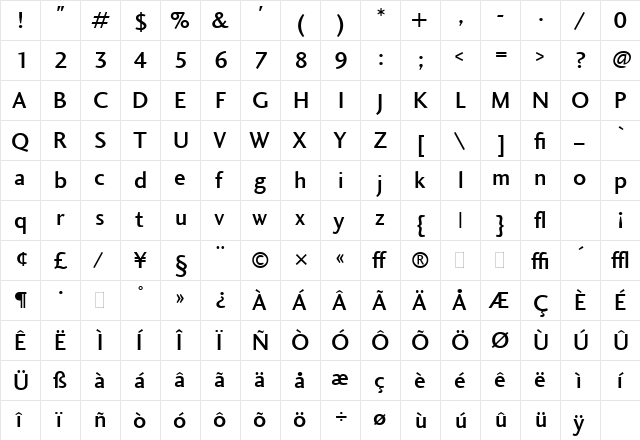
Charlotte Sans Medium LET Regular
| Foundry | International Typeface Corporation |
| Designer | Michael Gills |
Design Context for Charlotte Sans Medium LET Typeface
Charlotte Sans Medium LET takes a measured approach to typography — its balanced proportions and neutral character make it a reliable workhorse for both digital and print work.